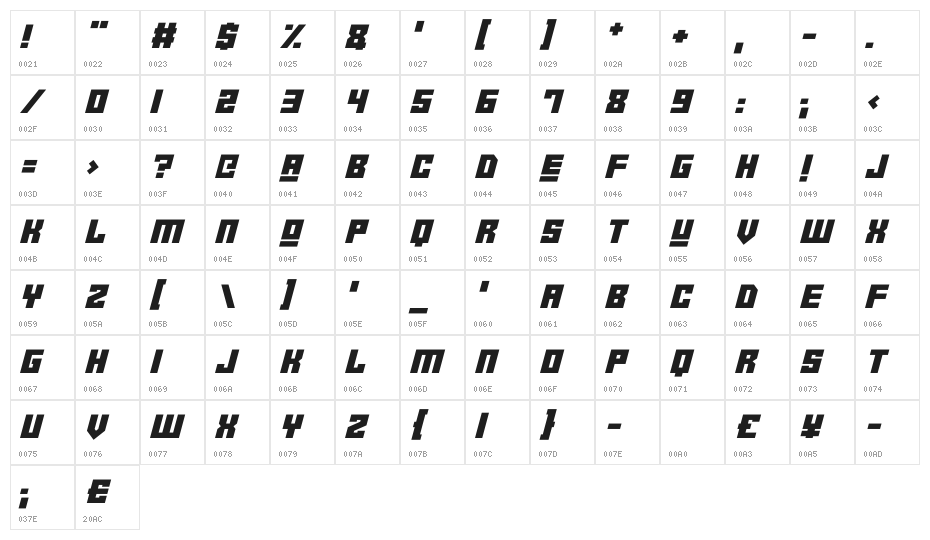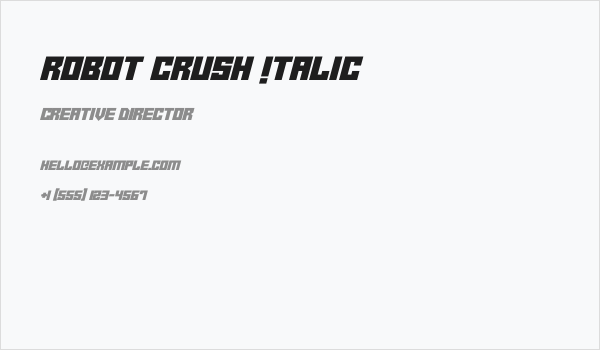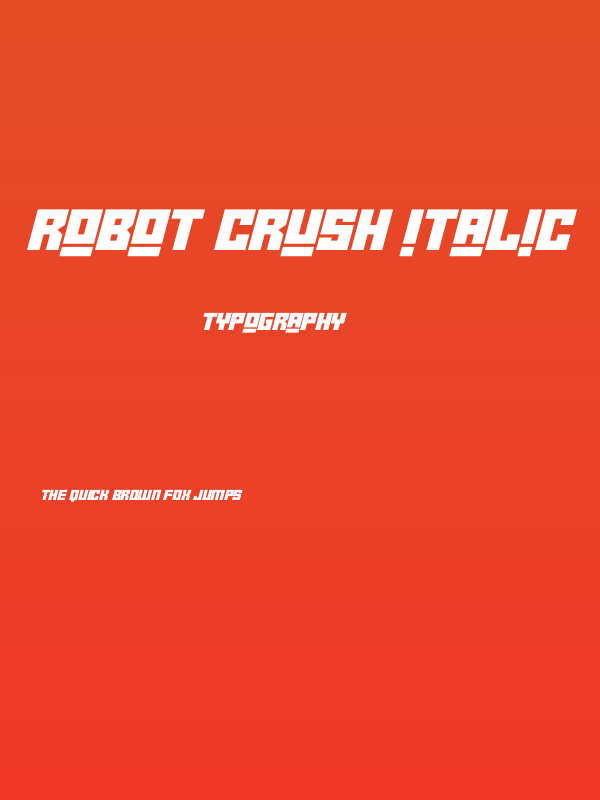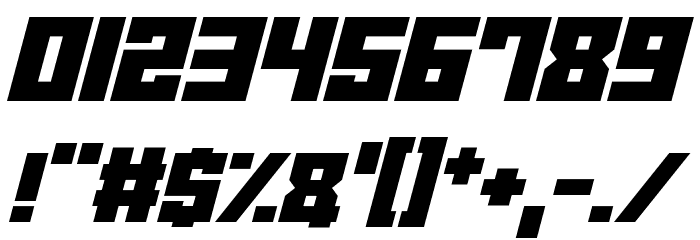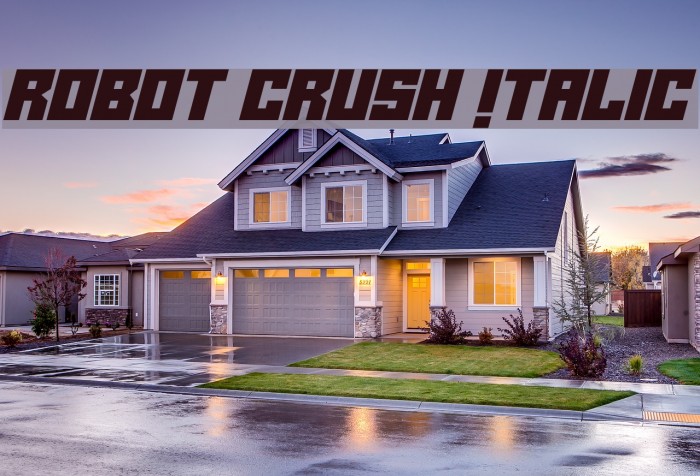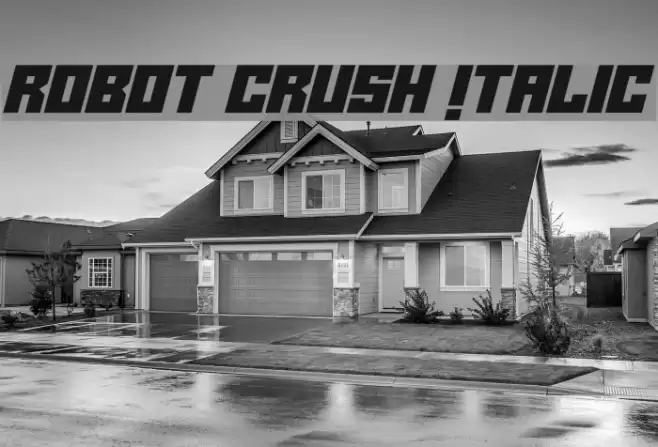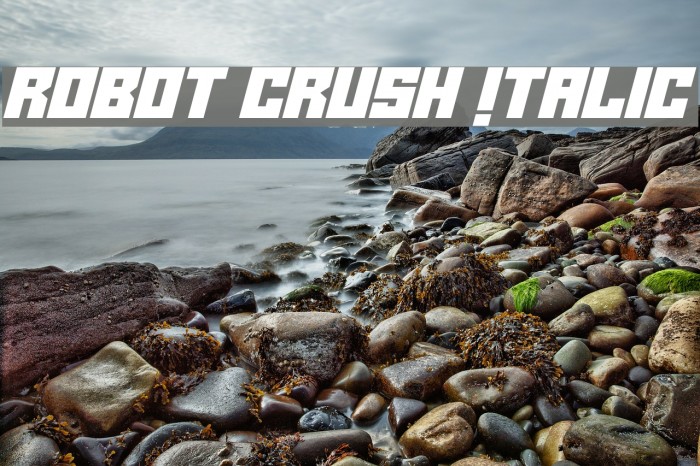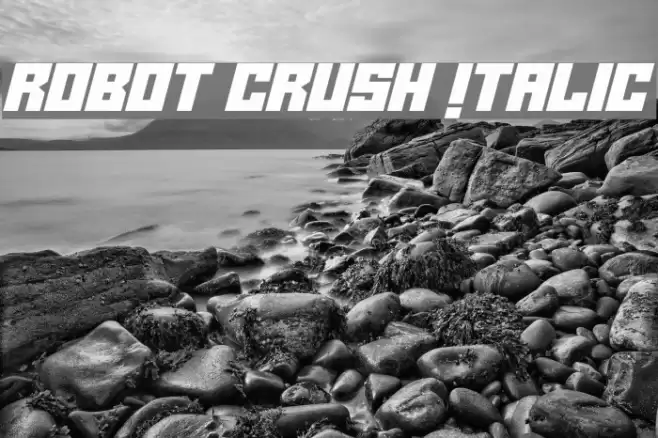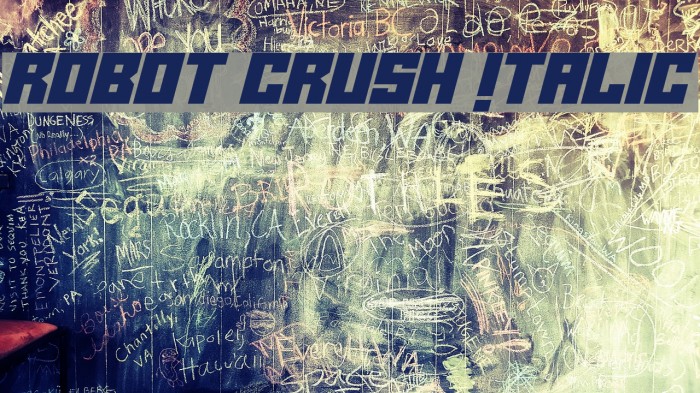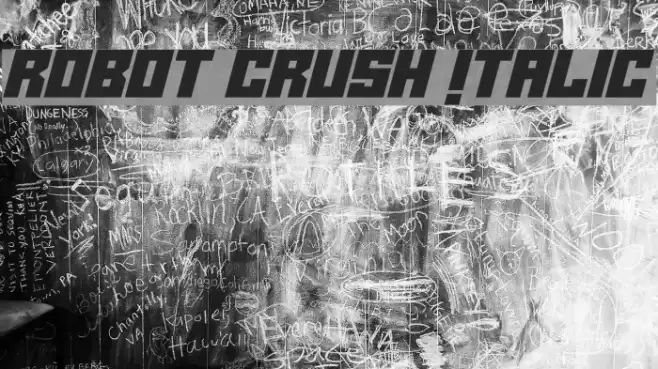
Robot Crush Italic Font
Robot Crush Italic Description
This font features a bold, angular design with a futuristic and industrial feel. The characters are heavily slanted, giving an italicized appearance that enhances its dynamic and energetic style. The strokes are thick and uniform, contributing to a strong visual impact. The edges are sharp and geometric, with a blocky structure that emphasizes a modern, tech-inspired aesthetic. The uppercase and lowercase letters maintain a consistent style, while the numerals and special characters are designed to match the overall theme. This font is ideal for projects that require a bold statement and a contemporary look.
| Proposed Projects | Ideal for tech branding, video game titles, sci-fi posters, and modern logos. |